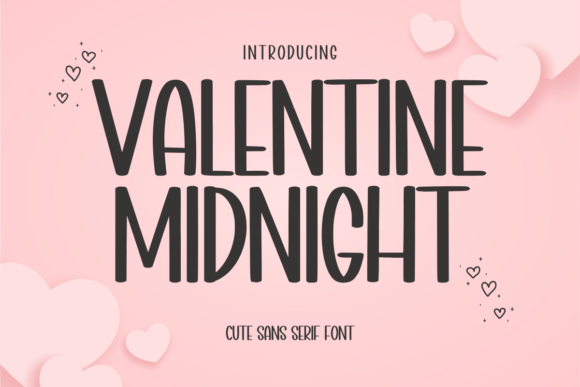
Introducing Valentine Midnight Font: The Perfect Addition to Your Font Library
Are you looking for a font that adds a touch of friendliness and cuteness to your projects? Look no further than the Valentine Midnight Font. Designed in a handwritten sans serif font style, this font is perfect for a variety of fun projects, from diary planners to party decorations. In this article, we’ll explore the features and benefits of the Valentine Midnight Font, and how it can elevate your designs to the next level.
Key Features of Valentine Midnight Font
- Cute and Friendly Handwritten Style: The Valentine Midnight Font boasts a charming, handwritten sans serif style that is sure to capture the hearts of your audience.
- Versatility: This font is perfect for a wide range of projects, including Easter, back to school, wedding, party decorations, invitations, Fall, Summer, Winter, Halloween, Christmas, posters, blogs, clothing, kids-related designs, greeting cards, social media posts, and more.
- Easy to Read: The sans serif style of the Valentine Midnight Font makes it easy to read, even at smaller font sizes.
10 Project Ideas to Get You Started with Valentine Midnight Font
- Easter Egg Hunt Invitations: Create adorable invitations for an Easter egg hunt using the Valentine Midnight Font.
- Back to School Planners: Design a fun and functional planner for kids heading back to school.
- Wedding Party Decorations: Add a touch of whimsy to your wedding party decorations with this charming font.
- Halloween Party Invites: Create spooky-ooky invitations for a Halloween party that kids will love.
- Christmas Gift Tags: Use the Valentine Midnight Font to create cute and personalized gift tags for Christmas.
- Kids’ Blog or Website: Create a fun and engaging blog or website for kids using this font.
- Social Media Posts: Add a friendly touch to your social media posts with the Valentine Midnight Font.
- Greeting Cards: Design beautiful and heartfelt greeting cards for any occasion.
- Clothing Designs: Create fun and playful clothing designs for kids using this font.
- Fall or Winter Posters: Design eye-catching posters for Fall or Winter using the Valentine Midnight Font.
The Benefits of Using Valentine Midnight Font
The Valentine Midnight Font offers several benefits that make it an excellent addition to your font library:
- Unique and Eye-catching: This font is sure to grab attention with its unique and adorable handwritten style.
- Time-saving: With the Valentine Midnight Font, you can create professional-looking designs in no time.
- Easy to Pair: The Valentine Midnight Font pairs well with other fonts, making it easy to mix and match.
Tips and Tricks for Using Valentine Midnight Font
Here are some tips and tricks to help you get the most out of the Valentine Midnight Font:
- Experiment with Font Sizes: Try out different font sizes to see what works best for your project.
- Mix and Match with Other Fonts: Pair the Valentine Midnight Font with other fonts to create a unique look.
- Use it for Headings and Titles: This font is perfect for headings and titles, adding a touch of friendliness to your designs.
- Add a Personal Touch: Use the Valentine Midnight Font to add a personal touch to your designs, making them more relatable and engaging.
In conclusion, the Valentine Midnight Font is a versatile and adorable font that can elevate your designs to the next level. With its cute and friendly handwritten sans serif style, this font is perfect for a wide range of projects. Whether you’re designing for Easter, back to school, wedding, party decorations, or simply want to add a friendly touch to your social media posts, the Valentine Midnight Font is an excellent choice.